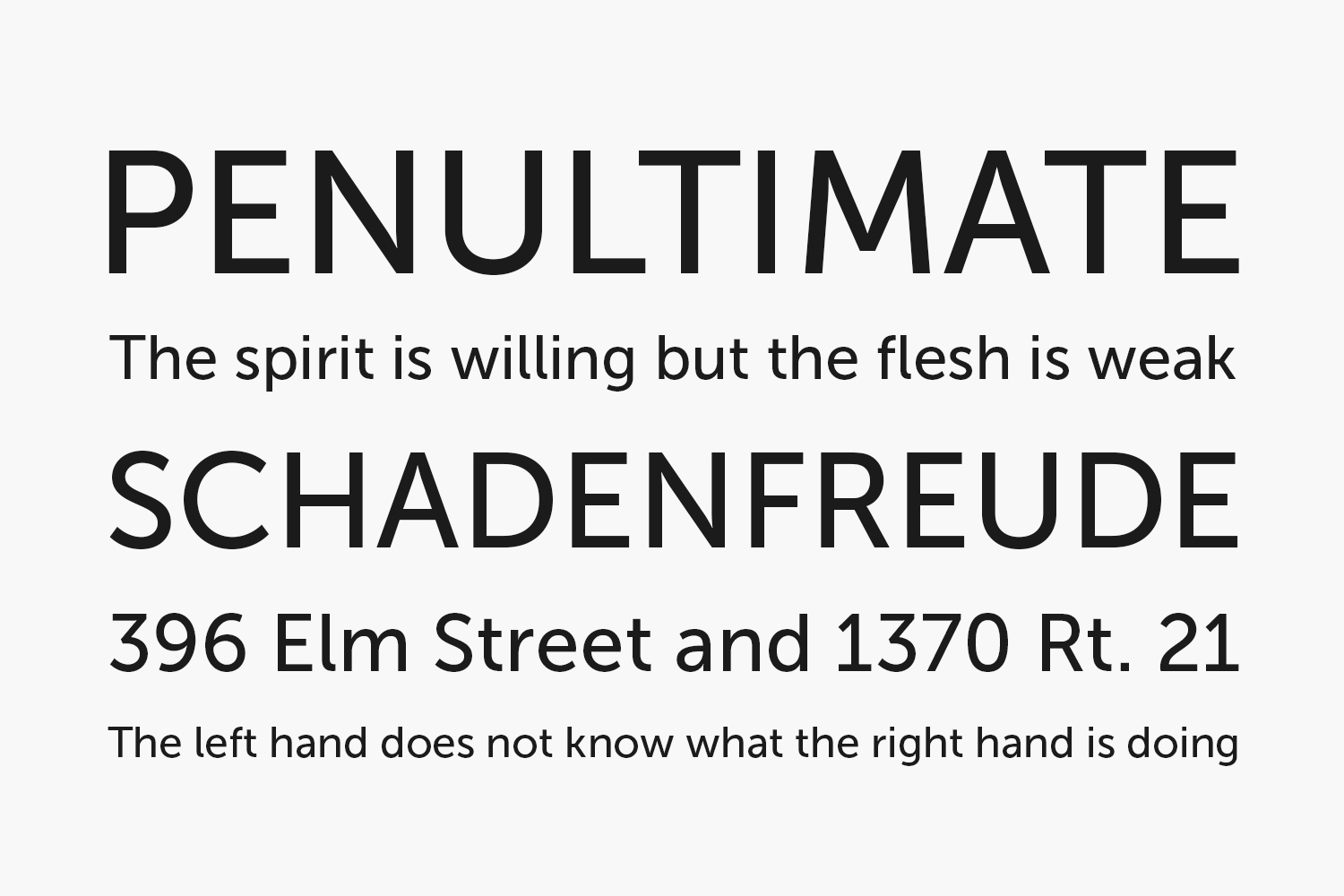
Fonts Museo Sans
Fonts Museo Sans - Museo sans font family was designed by jos buivenga and published by exljbris. It is a sturdy, low contrast, geometric, highly legible sans serif typeface very well. Web complete family of 10 fonts:
It is a sturdy, low contrast, geometric, highly legible sans serif typeface very well. Museo sans font family was designed by jos buivenga and published by exljbris. Web complete family of 10 fonts:
Web complete family of 10 fonts: It is a sturdy, low contrast, geometric, highly legible sans serif typeface very well. Museo sans font family was designed by jos buivenga and published by exljbris.
It is a sturdy, low contrast, geometric, highly legible sans serif typeface very well. Web complete family of 10 fonts: Museo sans font family was designed by jos buivenga and published by exljbris.
Web complete family of 10 fonts: It is a sturdy, low contrast, geometric, highly legible sans serif typeface very well. Museo sans font family was designed by jos buivenga and published by exljbris.
It is a sturdy, low contrast, geometric, highly legible sans serif typeface very well. Web complete family of 10 fonts: Museo sans font family was designed by jos buivenga and published by exljbris.
Web complete family of 10 fonts: It is a sturdy, low contrast, geometric, highly legible sans serif typeface very well. Museo sans font family was designed by jos buivenga and published by exljbris.
It is a sturdy, low contrast, geometric, highly legible sans serif typeface very well. Web complete family of 10 fonts: Museo sans font family was designed by jos buivenga and published by exljbris.
Museo sans font family was designed by jos buivenga and published by exljbris. Web complete family of 10 fonts: It is a sturdy, low contrast, geometric, highly legible sans serif typeface very well.
It is a sturdy, low contrast, geometric, highly legible sans serif typeface very well. Museo sans font family was designed by jos buivenga and published by exljbris. Web complete family of 10 fonts:
Museo Sans Font Family Was Designed By Jos Buivenga And Published By Exljbris.
Web complete family of 10 fonts: It is a sturdy, low contrast, geometric, highly legible sans serif typeface very well.